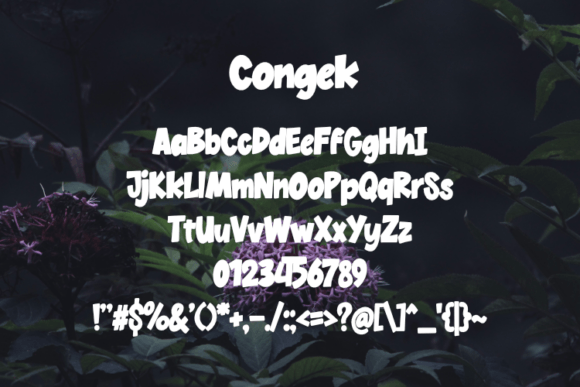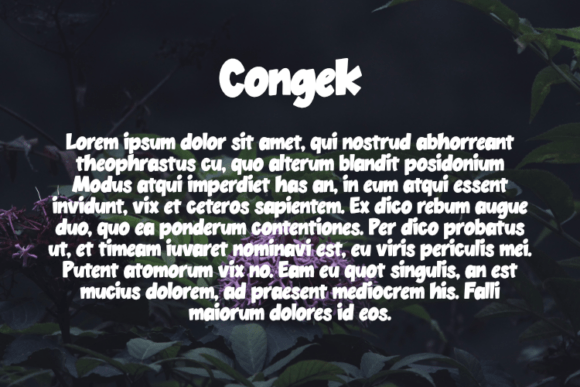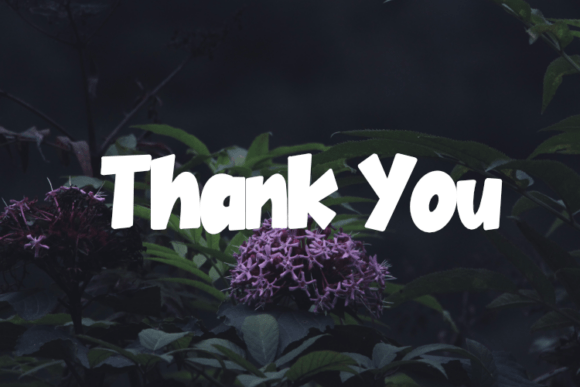
Unlock Endless Design Possibilities with Congek Font
Immerse yourself in the art of creative typography with Congek — a versatile font designed explicitly for apparel and product creation. This font is a harmonious blend of style and functionality, lending itself perfectly to all designs, across all software platforms. Whether you’re a seasoned designer or a crafty entrepreneur, Congek is the perfect companion to elevate your visual projects.
Endless Design Possibilities with Congek
From trendsetting t-shirts to one-of-a-kind custom products, Congek provides the perfect stylistic touch to amplify your vision. This font is specifically designed to help you create stunning text-based designs that pop, making it an ideal choice for:
- T-shirts and apparel
- Mugs and water bottles
- Phone cases and laptop skins
- Social media graphics and more
Why Choose Congek Font?
Congek offers a unique combination of style, functionality, and versatility, making it an excellent choice for designers and crafters. Here are just a few reasons why Congek stands out:
- Unique Style: Congek boasts a distinctive design that adds a touch of sophistication to any project.
Unleash Your Creativity with Congek
Congek is more than just a font — it’s a design journey. With Congek, you can:
- Experiment with different design styles and techniques
- Create unique and eye-catching text-based designs
- Develop a consistent brand identity across all your products
- Stay on-trend with the latest design styles and typography
Congek Font is the ultimate design companion for anyone looking to elevate their typography and take their designs to the next level. With its unique style, versatility, and ease of use, Congek is the perfect choice for designers and crafters alike. So why wait? Unlock the full potential of Congek and unleash your creativity today!